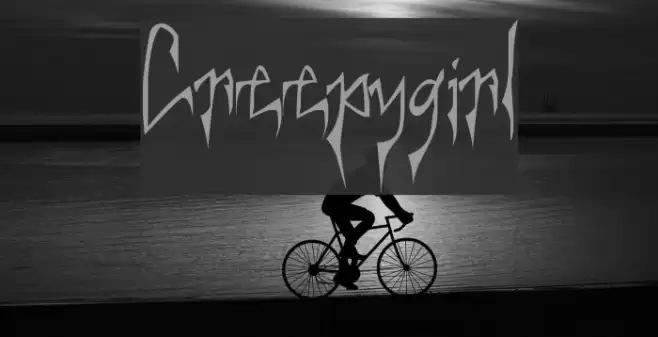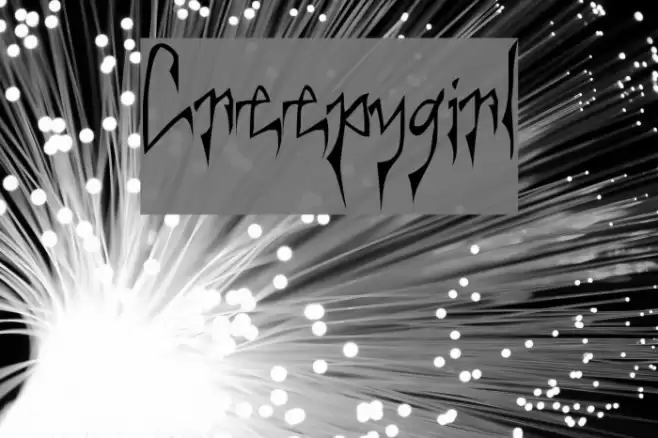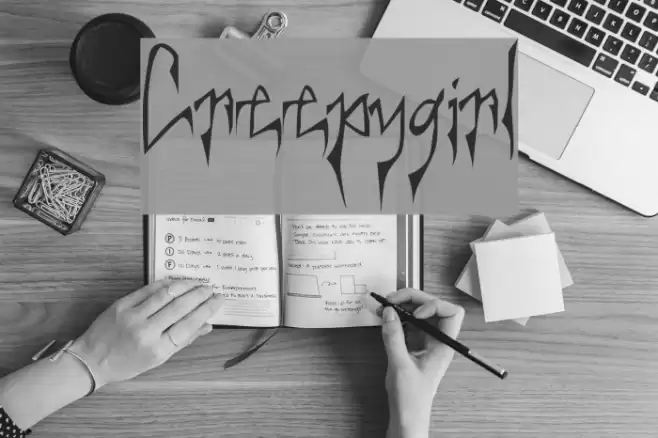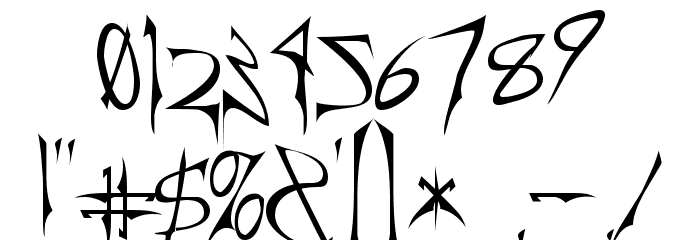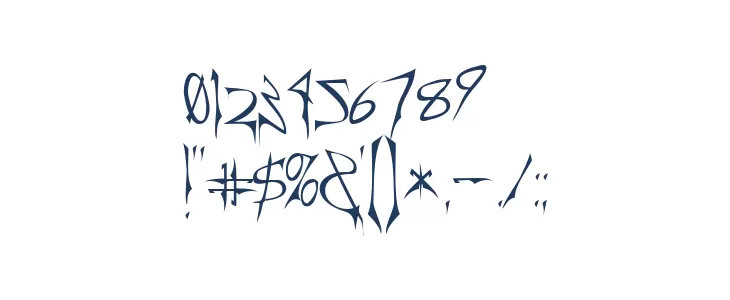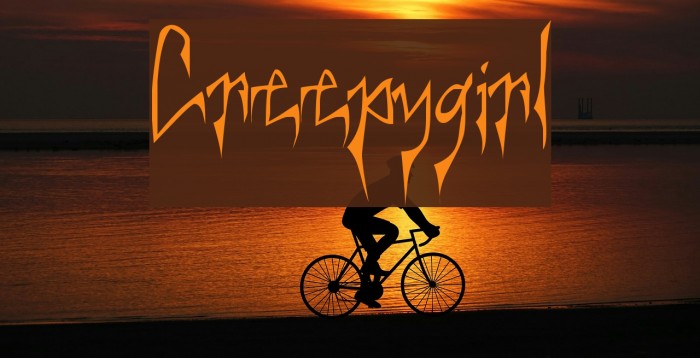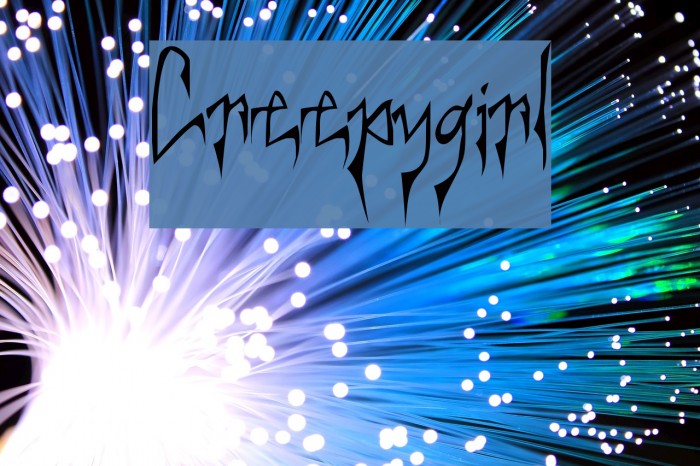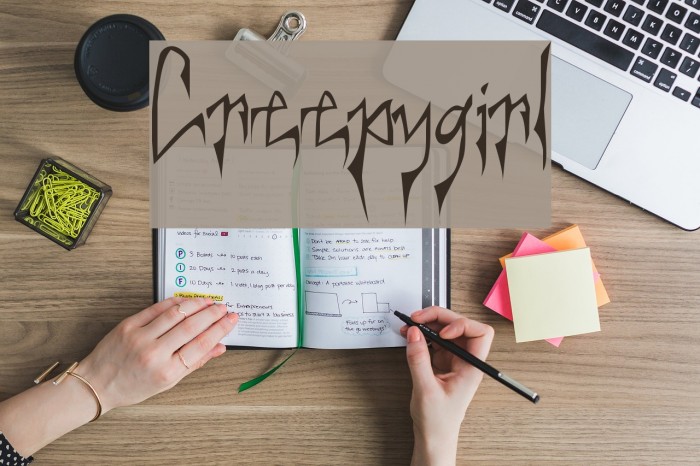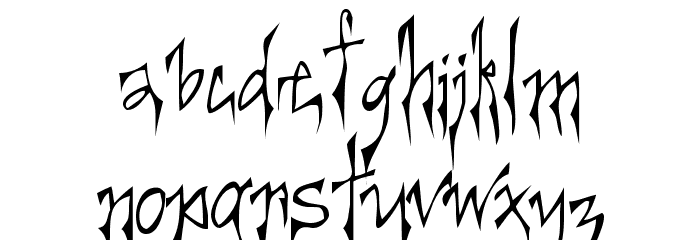
Creepygirl Font
Creepygirl Description
This font features a highly stylized and jagged design, reminiscent of gothic or horror-themed aesthetics. The characters are sharp and angular, with exaggerated points and curves that give them a menacing appearance. The uppercase letters are bold and dramatic, while the lowercase letters maintain the same edgy style but with slightly less intensity. Numbers and special characters follow the same design principles, ensuring consistency across the entire character set. This font is perfect for creating a spooky or eerie atmosphere in design projects.
A jagged, gothic-style font with sharp, dramatic characters from Quirky fonts.
- Proposed Projects: Ideal for horror movie posters, Halloween event flyers, or any project needing a spooky, dramatic touch.
- Overall Style: Gothic, Horror
- Use Case: Headlines, Posters, Themed Events